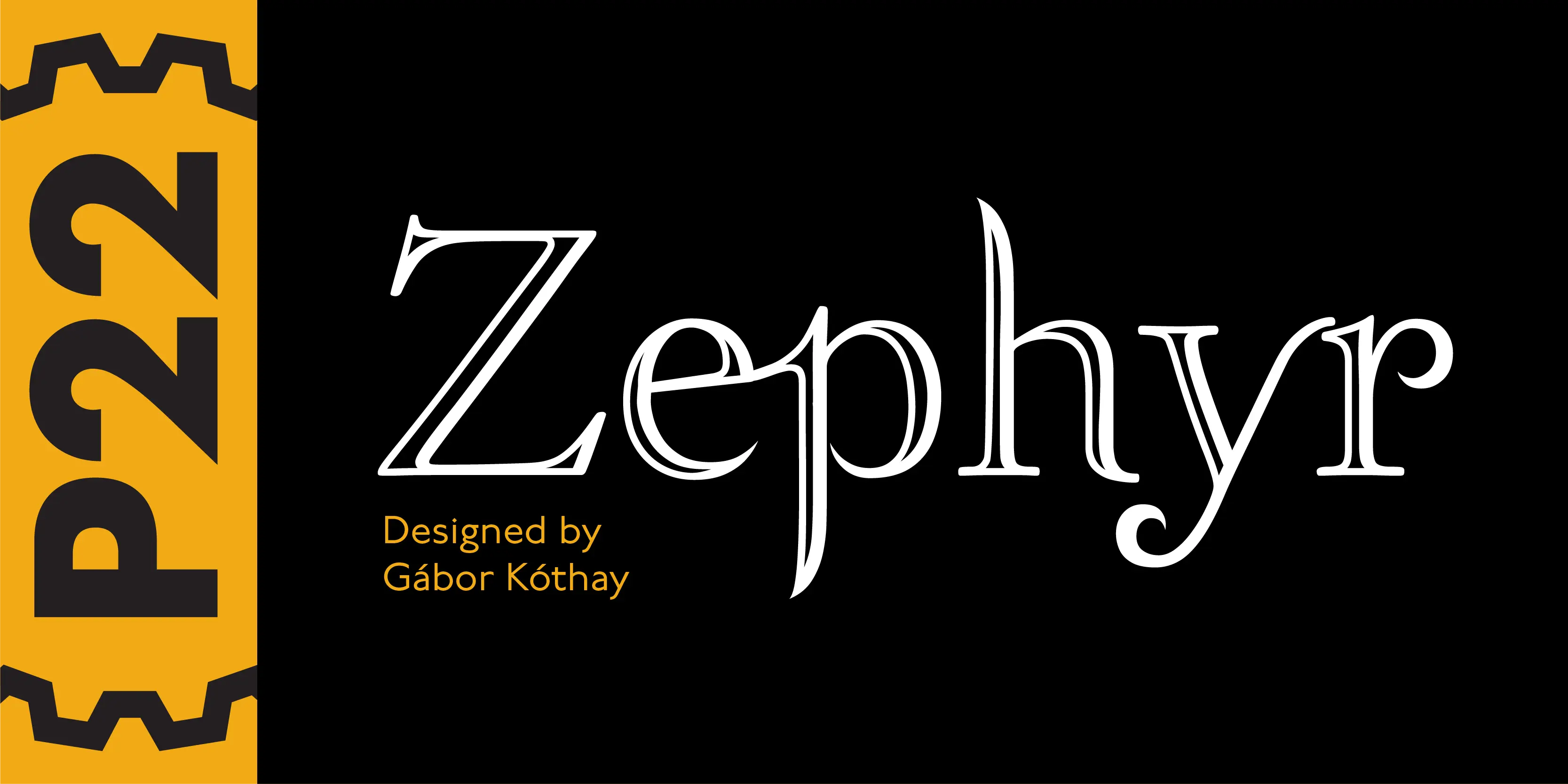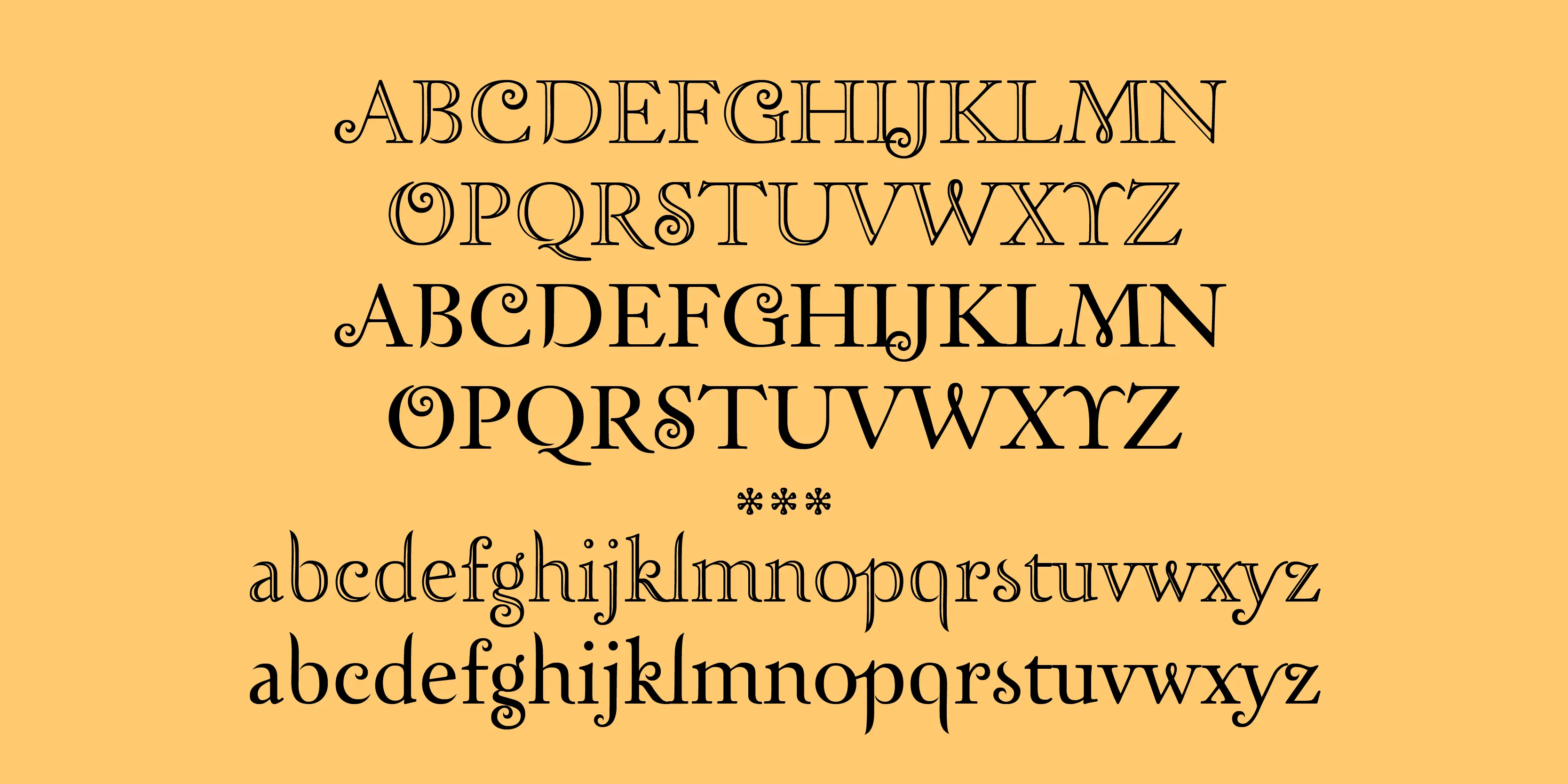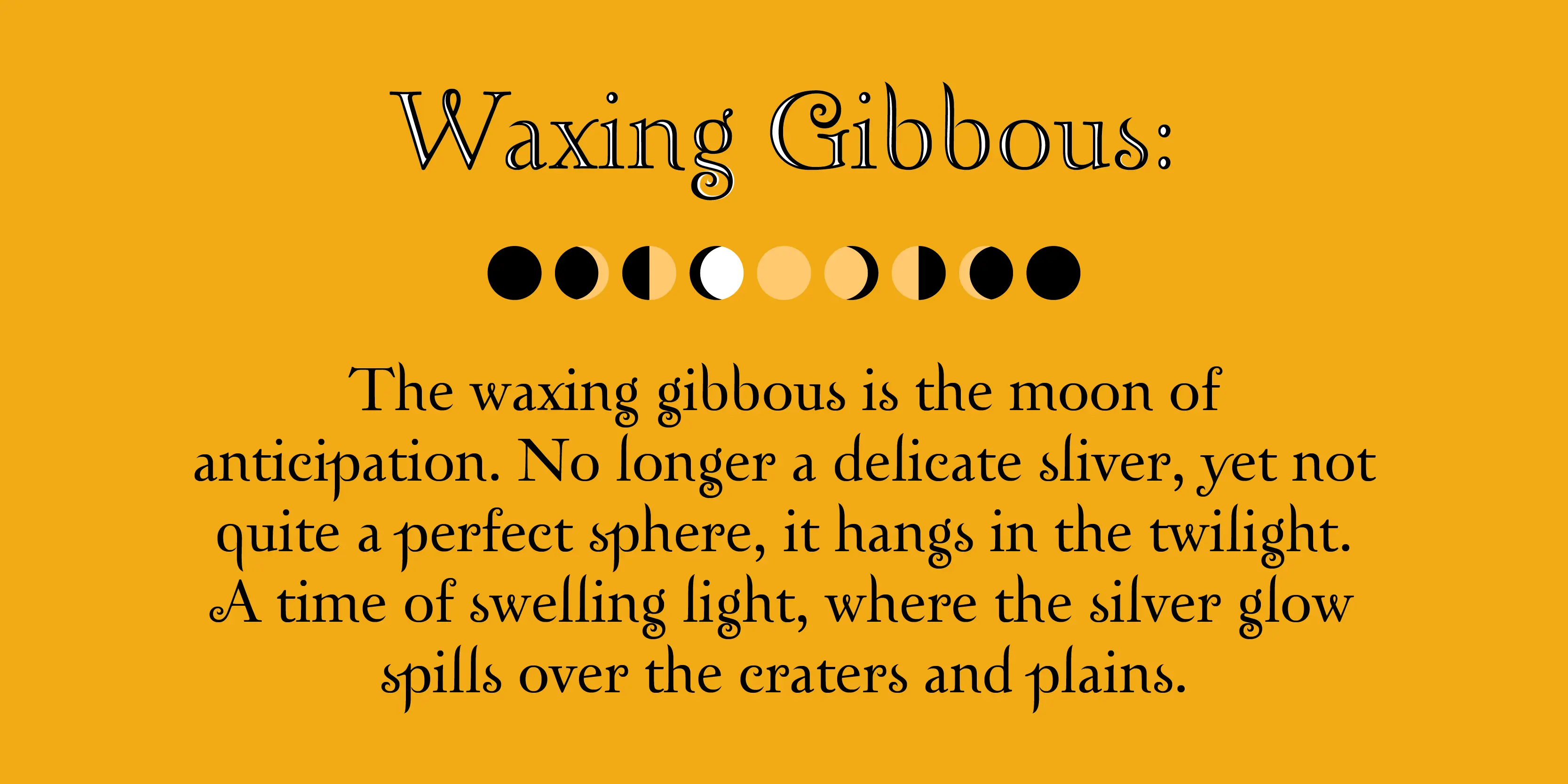
Zephyr Font Family
• Zephyr Regular
• Zephyr Openface
Zephyr
Zephyr is a sinuous Roman font available in both Regular and Openface (inline) versions. This classically inspired font set conjures up a gentle, relaxing breeze. Subtle and not-so-subtle variations offers a refreshingly modern take on these age-old letterforms. Zephyr is featured on the best selling ‘Twilight’ book series.